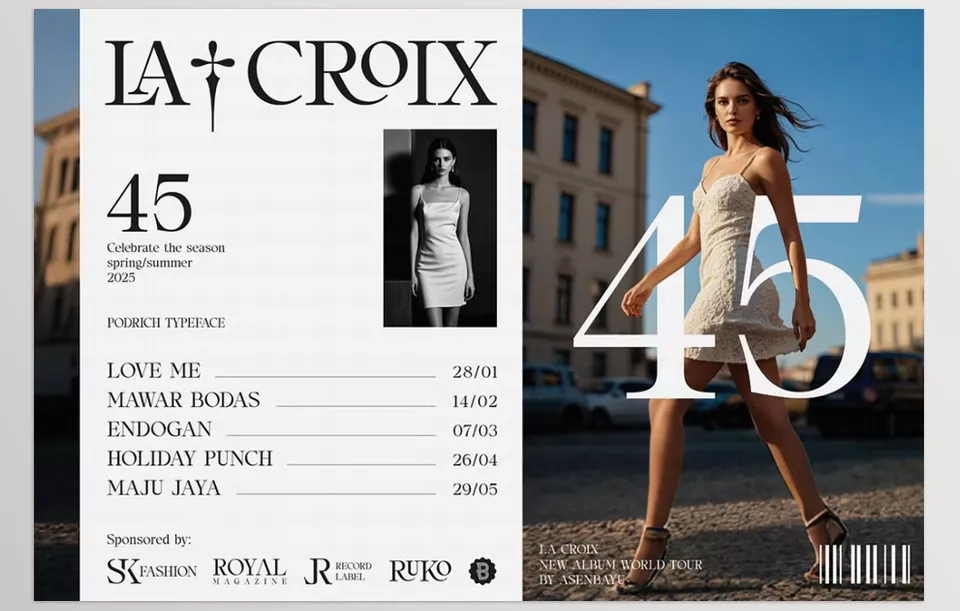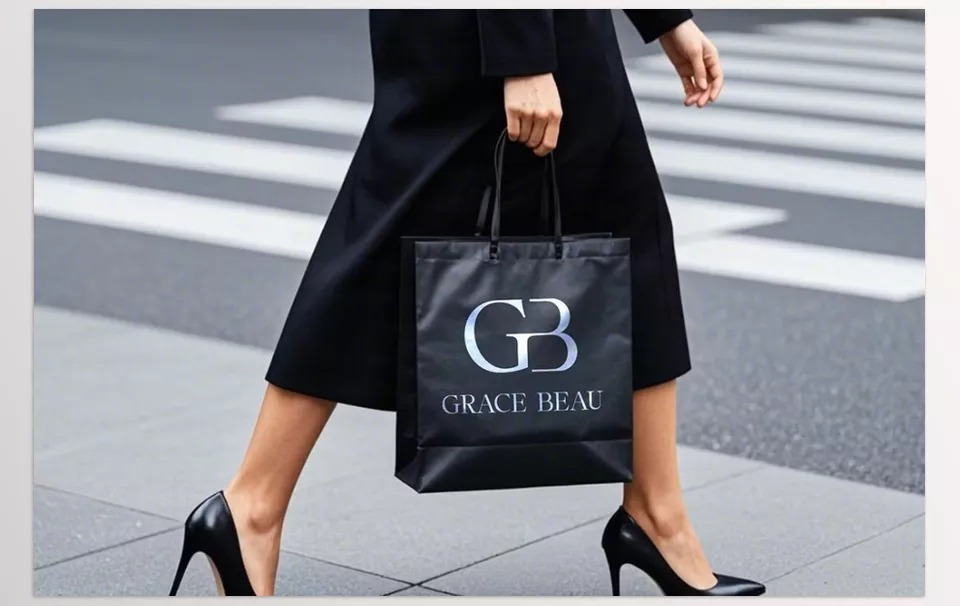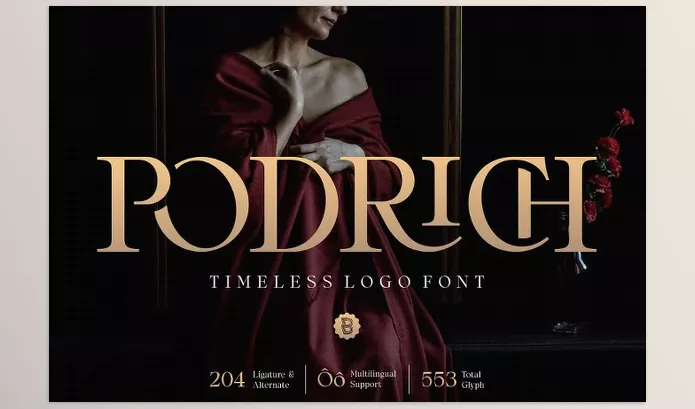
Podrich Timeless Logo Font adds sophistication to your brand with its elegant but luxurious serif typeface. It is also very readable due to the bold and thin lines of the letters in the font. Ideal for logos, posters, and luxury branding, the font comes with many alternates and ligatures, which makes branding distinctive.
Asenbayu – Podrich Timeless Logo Font Features
• Standard glyphs were also included.
• Alongside stylistic alternates, we offer ligatures
• The ligatures will also contain numerals and punctuation
• Multiple languages are supported
Preview Podrich Timeless Logo Font
Image 1: A serif that speaks the language of luxury—where every curve whispers sophistication.
Podrich Timeless Logo Font  - A serif that speaks the language of luxury—where every curve whispers sophistication.
Image 2: Timeless elegance, crafted for brands that leave a lasting impression.
Podrich Timeless Logo Font  - Timeless elegance, crafted for brands that leave a lasting impression.